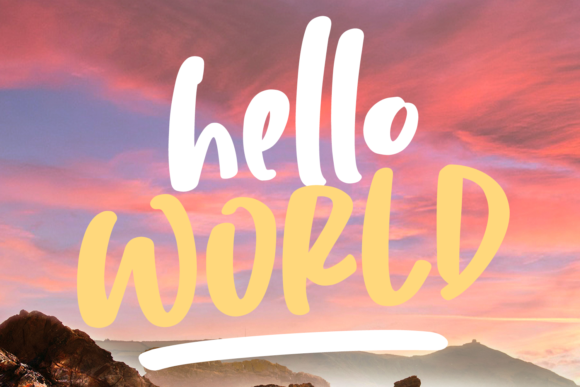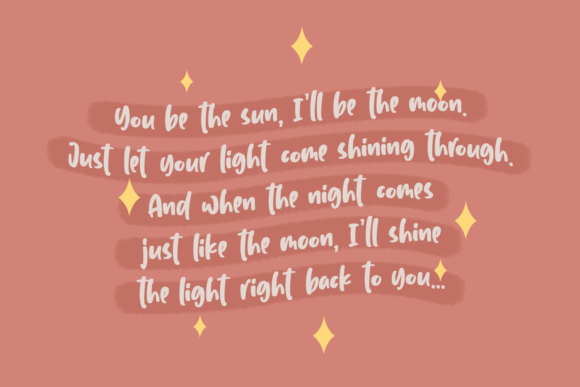
Yes Margo Font
db-ku.com - Script & Handwritten -- Yes Margo is a bold and friendly handwritten font. Get creative with its childlike playfulness, and use it to brighten up any kids and school project!